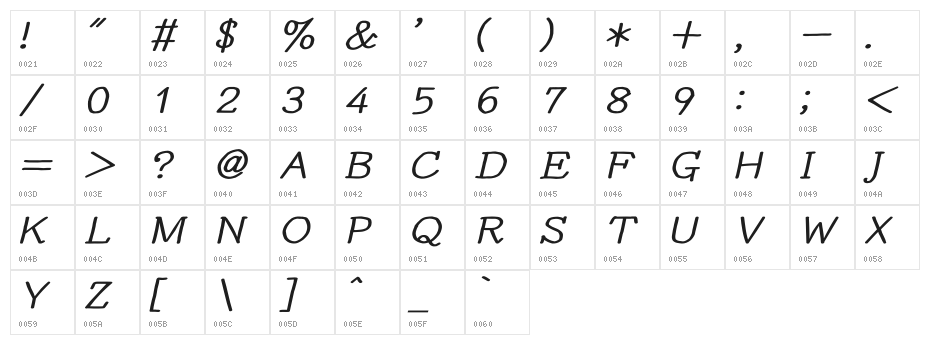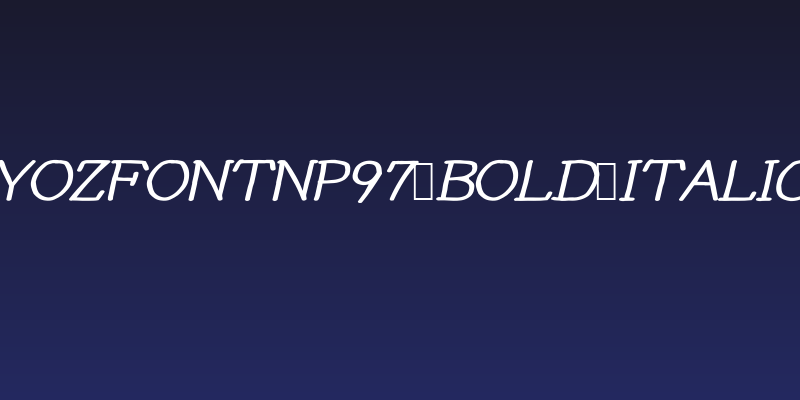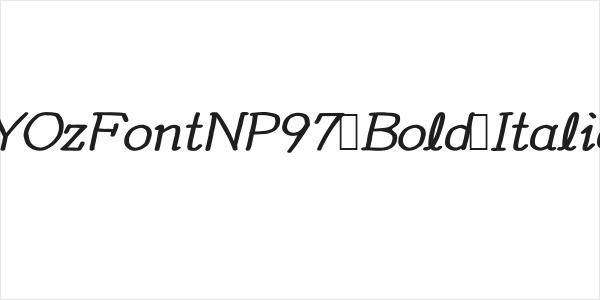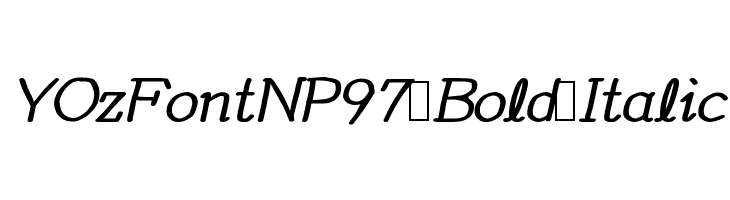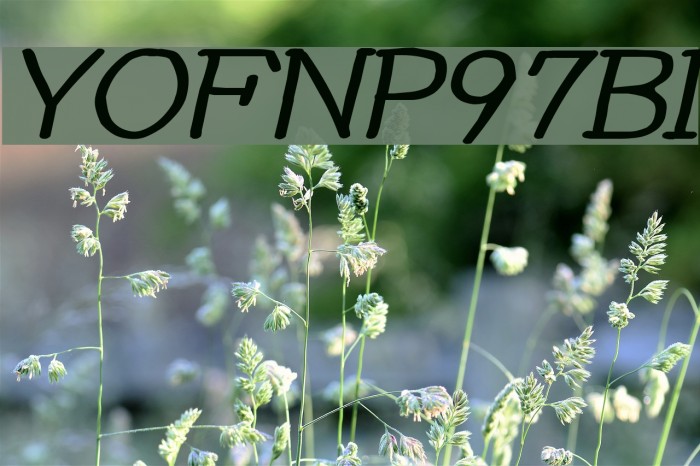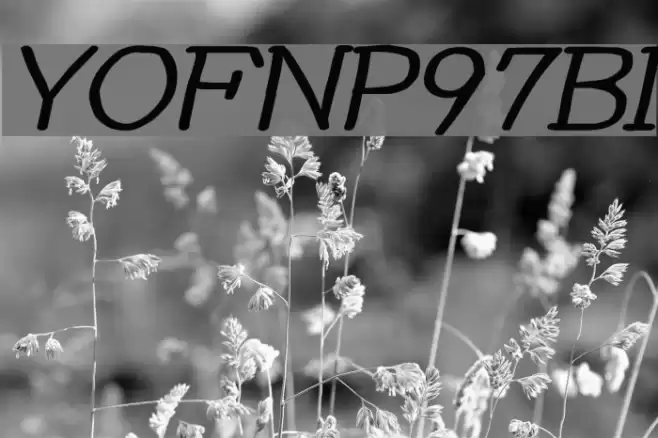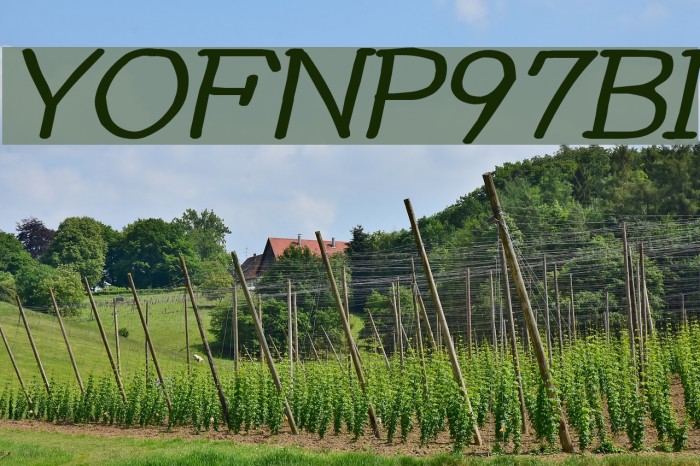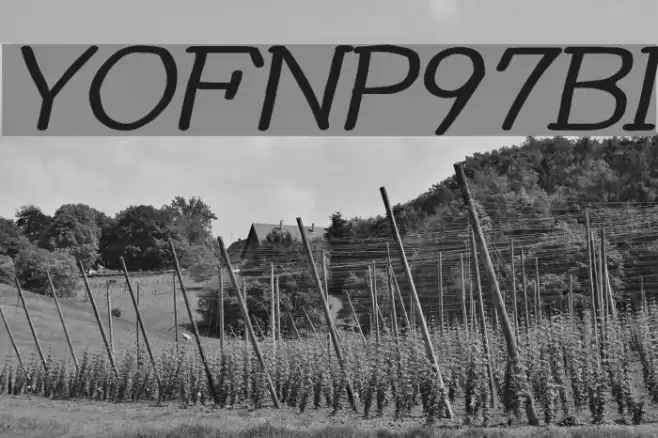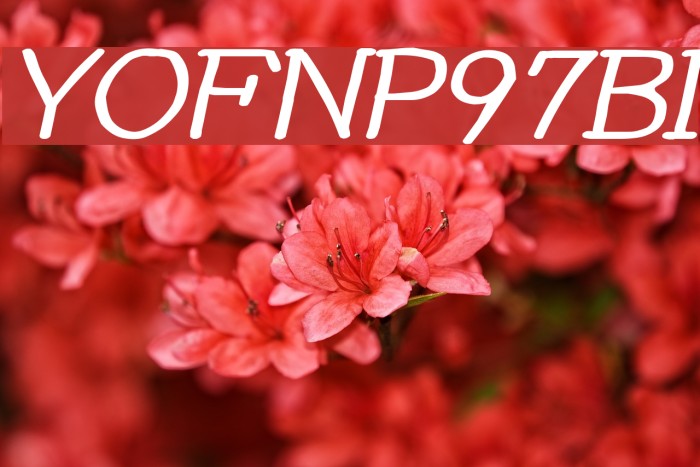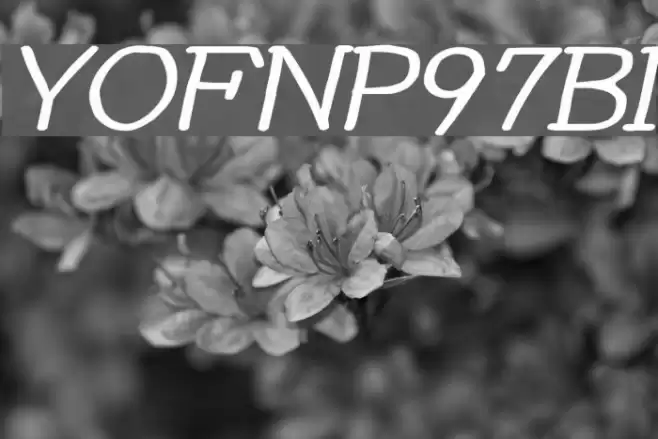
YOzFontNP97 Bold Italic Font
YOzFontNP97 Bold Italic Description
This font features a dynamic and elegant italic style with bold strokes, giving it a strong presence. The characters are slightly slanted, enhancing the sense of motion and fluidity. The uppercase letters are tall and commanding, while the lowercase letters maintain a consistent flow with rounded edges. Numerals are clear and bold, ensuring readability. Special characters are well-defined, complementing the overall aesthetic. The font's design is both modern and classic, making it versatile for various applications.
| Use Case | Headlines, Logos, Branding |
| Proposed Projects | Ideal for branding, headlines, and editorial design where a strong and elegant presence is desired. |